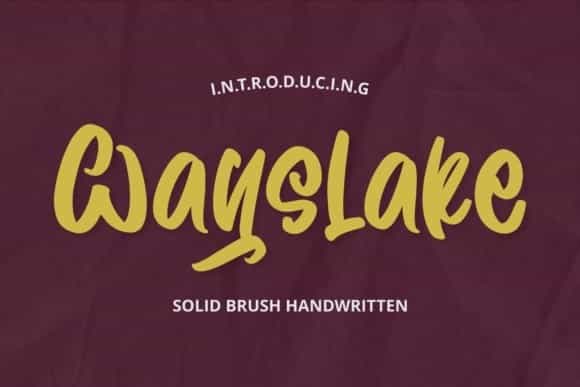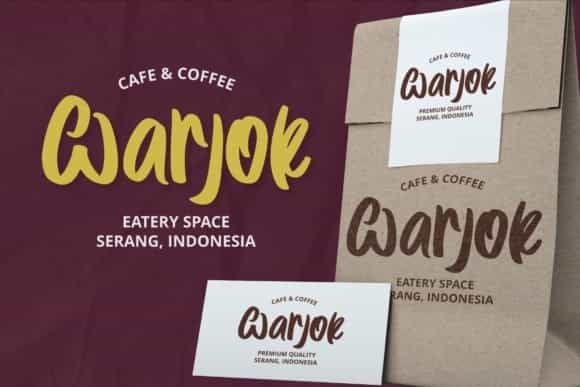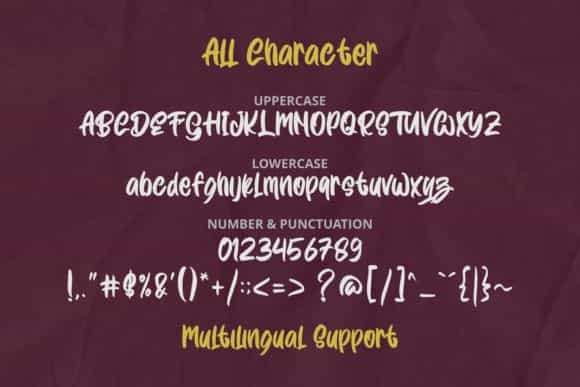
“Wayslake” is a contemporary solid brush font that embodies expressive lettering. It’s perfect for endeavors including craft projects, branding initiatives, quote designs, prints, logos, social media posts kids decor items, clothing items, svg designs and much more!